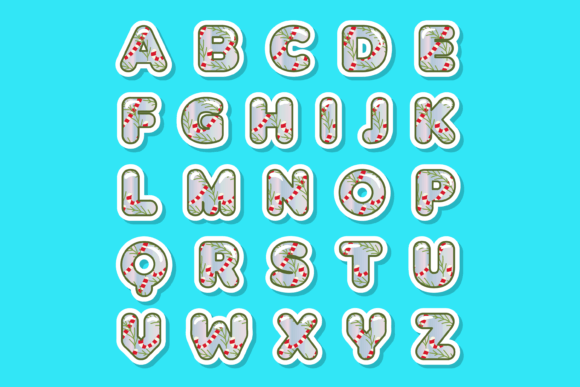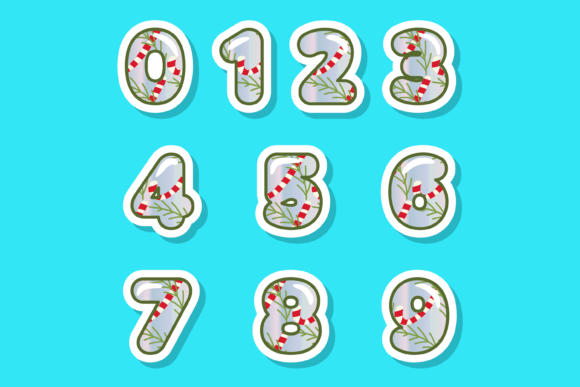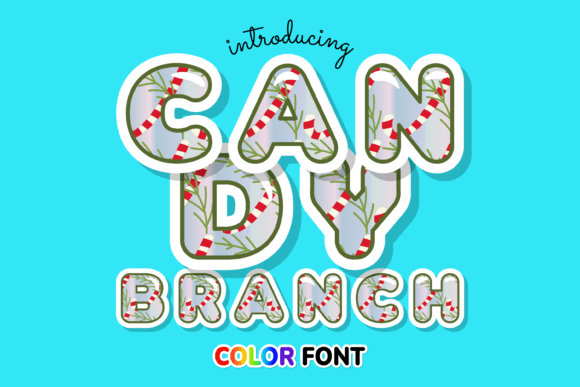
Candy Branch Font: The Sweetest Addition to Your Design Arsenal
Are you on the hunt for a font that adds a dash of whimsy and fun to your designs? Look no further than the Candy Branch Font! This vibrant, color font is perfect for crafters, designers, and anyone looking to add a pop of personality to their creations. In this article, we’ll dive into the world of Candy Branch Font, exploring its features, benefits, and uses.
What is Candy Branch Font?
Candy Branch Font is an incredibly cool color font that’s sure to delight. Its unique, colorful design makes it an amazing choice for custom designs, DIY crafts, and any creation that requires a lovely touch. Whether you’re a professional designer or a crafting enthusiast, this font is sure to bring a smile to your face.
Key Features of Candy Branch Font
• Color Font (Opentype-SVG): Candy Branch Font is a cutting-edge color font that uses SVG technology to deliver vibrant, scalable graphics.
Benefits of Using Candy Branch Font
So, why choose Candy Branch Font for your next project? Here are just a few benefits of using this amazing font:
• Adds a Pop of Color: Candy Branch Font is a color font that adds a burst of color to your designs, making them stand out from the crowd.
• Versatile: This font is perfect for a wide range of projects, from custom designs and DIY crafts to party decorations and social media graphics.
• Ease of Use: With its user-friendly design and compatibility with popular software, Candy Branch Font is easy to use, even for those new to design.
Using Candy Branch Font: Tips and Tricks
Ready to get started with Candy Branch Font? Here are some tips and tricks to help you make the most of this amazing font:
• Experiment with Colors: One of the best things about Candy Branch Font is its colorful design. Don’t be afraid to experiment with different colors and combinations to find the perfect look for your project.
• Mix and Match: Try pairing Candy Branch Font with other fonts and graphics to create a unique, eye-catching design.
Project Ideas Using Candy Branch Font
Now that you’re excited about Candy Branch Font, you’re probably wondering what kind of projects you can use it for. Here are some ideas to get you started:
• Custom Party Decorations: Use Candy Branch Font to create colorful, custom party decorations, such as banners, garlands, and more.
• DIY Crafts: Add a personal touch to your DIY crafts, such as cards, gift tags, and iron-on designs, with Candy Branch Font.
• Social Media Graphics: Use Candy Branch Font to create eye-catching social media graphics, such as Facebook posts, Instagram stories, and more.